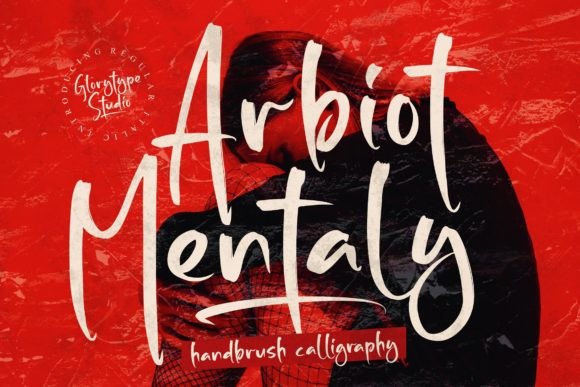
The Designer’s Delight: Arbiot Mentaly Font
I’ll never forget the time I was working on a branding project for a trendy homeware store. I had the perfect concept, the ideal color palette, and a clear vision of how I wanted the final product to look. But, as I was scrolling through my font library, I just couldn’t find the right one. That was until I stumbled upon Arbiot Mentaly – a beautiful brush handwritten font that instantly elevated my design to the next level. In this article, I’ll share my experience with Arbiot Mentaly, its features, and how to make the most of it in your designs.
What I Love About Arbiot Mentaly ✨
• 💫 Unique brush strokes and texture that add a personal touch to any design
• 🎨 Versatile and suitable for a wide range of projects, from logos to posters
• 🔥 Perfect for designs that require a creative and artistic feel
• ⚠️ Some characters may require manual kerning for optimal spacing
• 🤔 Limited availability of condensed or extended versions
3. Experiment with OpenType features, such as ligatures and stylistic alternates, to add more personality to your text
The Story Behind Arbiot Mentaly: Designer Inspiration
Arbiot Mentaly was created by a talented designer who wanted to craft a font that would capture the essence of handwritten brush strokes. With a passion for typography and a love for creative expression, the designer poured their heart and soul into creating a font that would inspire designers to create beautiful and unique designs.
Q: What type of projects is Arbiot Mentaly suitable for?
A: Arbiot Mentaly is suitable for a wide range of projects, including logos, branding, homeware designs, product packaging, mugs, quotes, posters, shopping bags, T-shirts, book covers, name cards, invitation cards, greeting cards, labels, photography, watermark, and special events.
Q: Is Arbiot Mentaly a difficult font to read?
A: No, Arbiot Mentaly is a highly legible font, even at smaller font sizes. However, as with any font, it’s essential to test it in your design to ensure it works well with your content and layout.